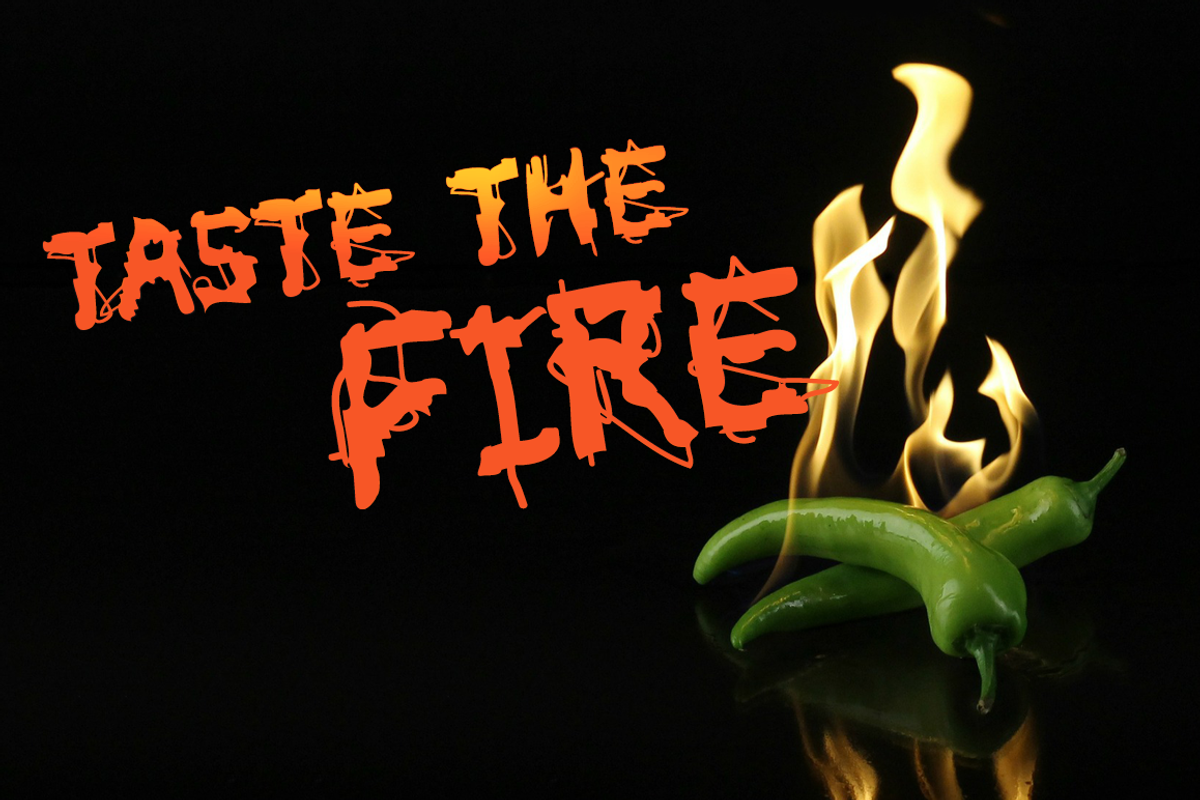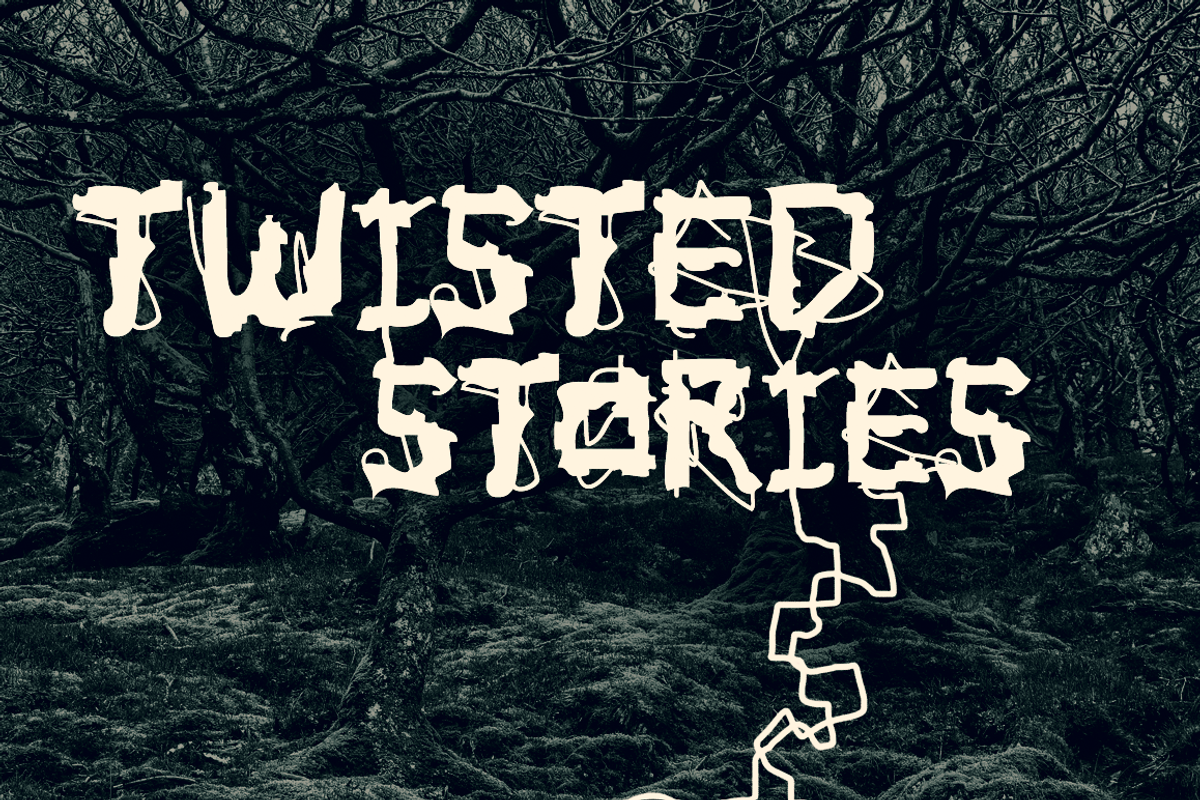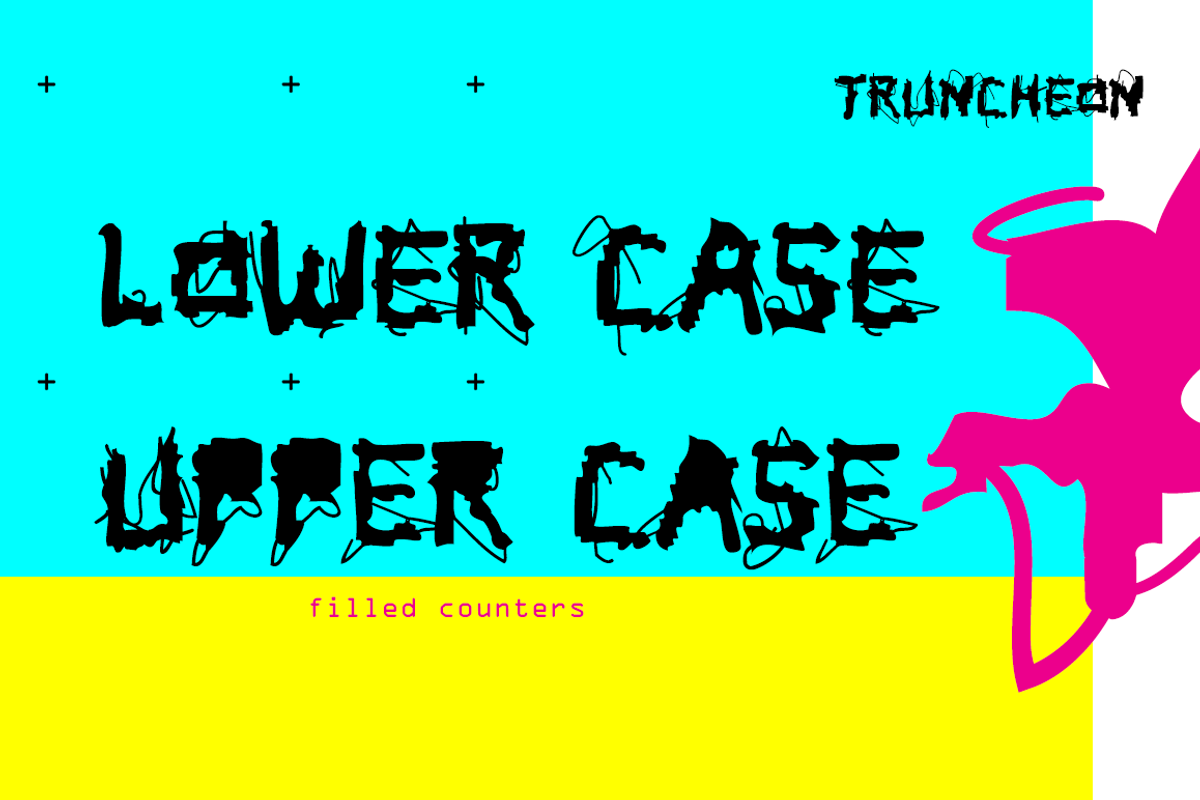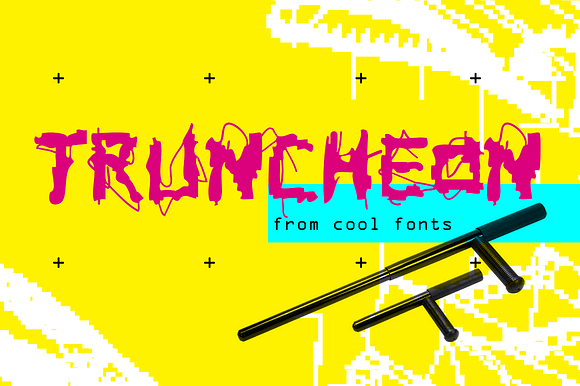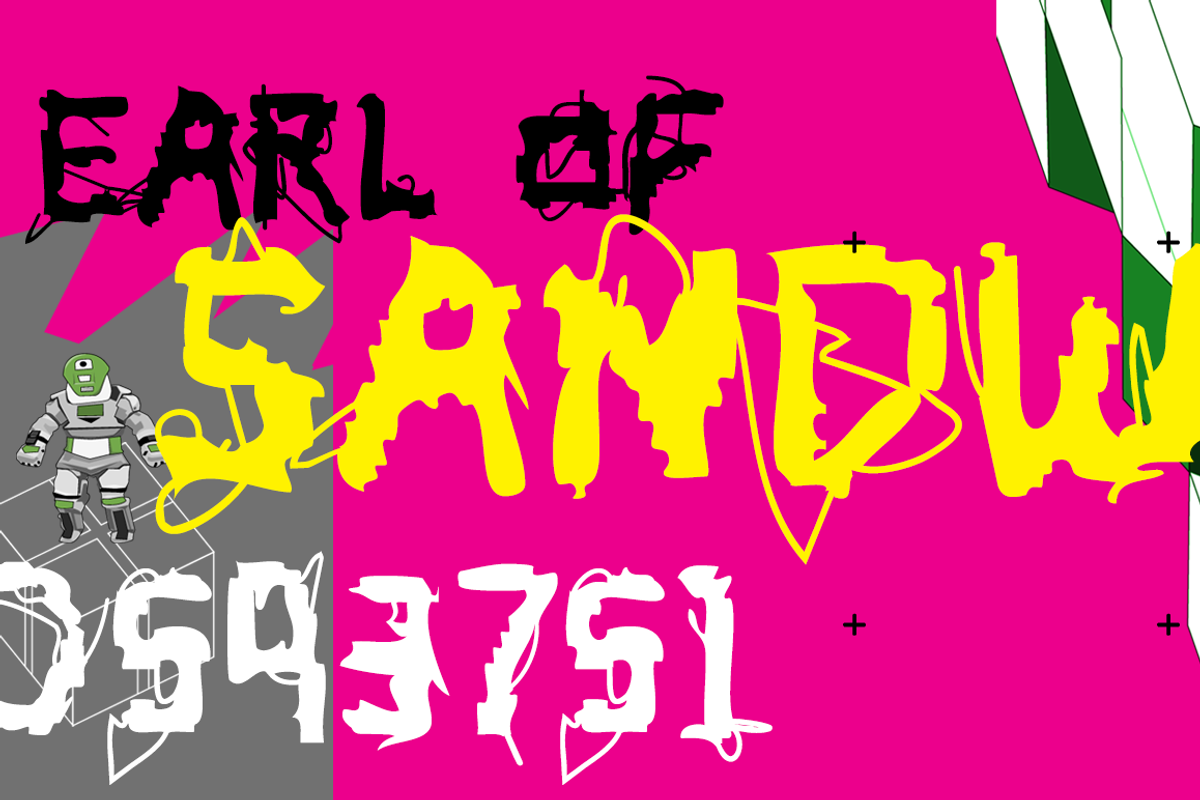
Truncheon
Truncheon is a grunge font with hair on its chest. Like its namesake, it beats you over the head with enough attitude to make your head spin. It almost looks digital and bitmapped but it's definitely too unpredictable for that. It's an all-caps typeface, but the upper and lower case characters have variations like filled counters to keep things random. It's got a full character set with number, punctuation and accents.
- It's an all-caps typeface, but the upper and lower case characters have variations like filled counters to keep things random.
- It's got a full character set with number, punctuation and accents.